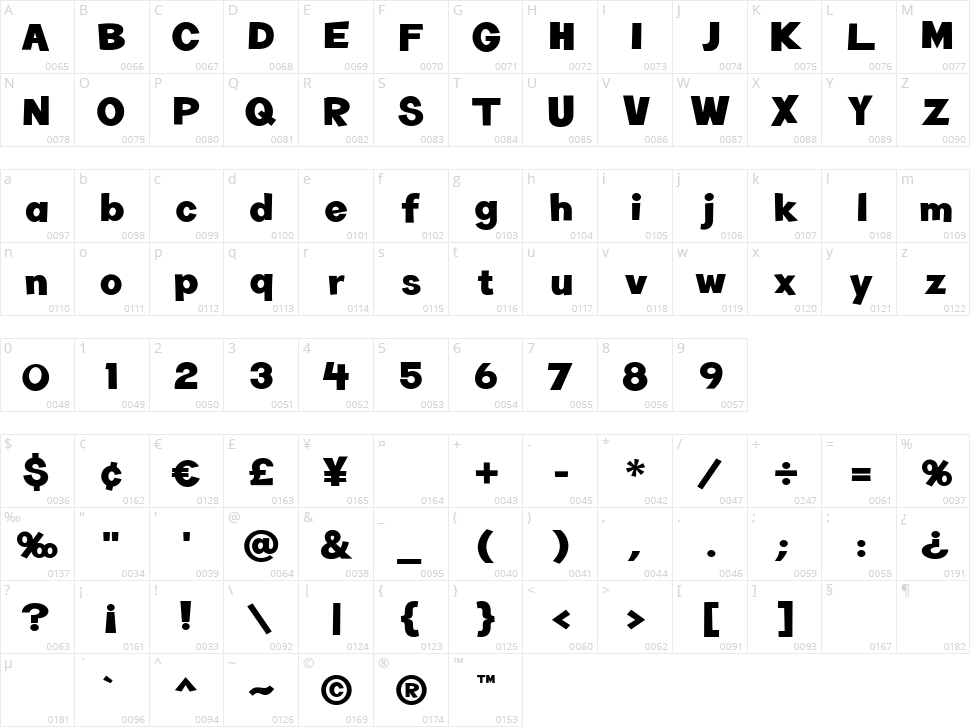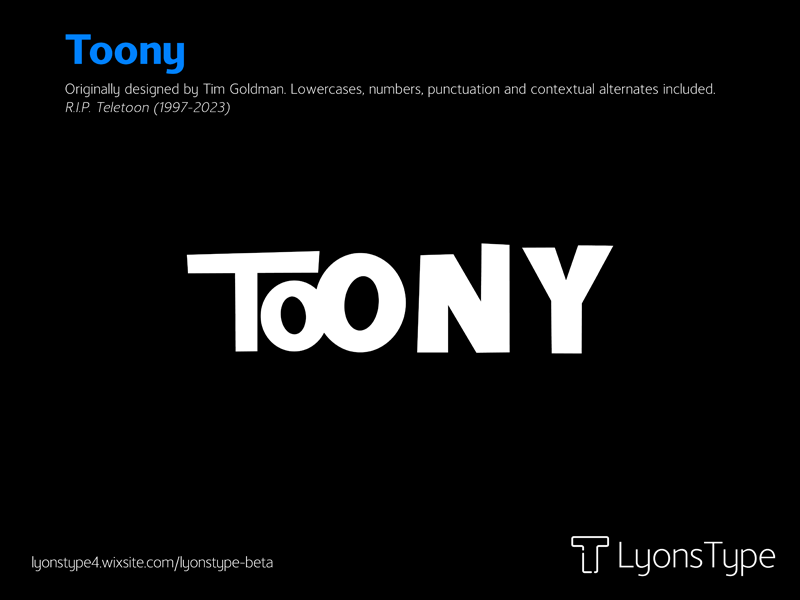
Toony
Note of the author Originally designed by Tim Goldman. Lowercases, numbers, punctuation and contextual alternates included.
Designer Name: LyonsType